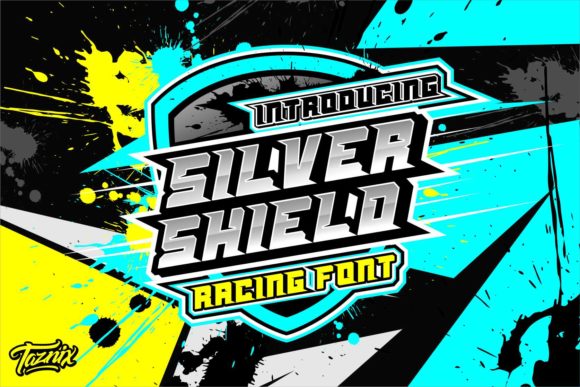
Prepare to be awestruck by Silver Shield, the display font that ignites a revolution in typography. Its bold and distinct character, meticulously crafted by taznixart, propels your designs to unprecedented heights.
Silver Shield is not just a font; it's a gateway to boundless creativity. Its robust structure and confident strokes command attention, making it the perfect choice for motorsports enthusiasts seeking to make a roaring statement.
With Silver Shield, your designs will conquer the racetrack of visual appeal. Its dynamic curves and sharp angles evoke the thrill of the chase, capturing the essence of speed and adrenaline. Unleash your imagination and let Silver Shield propel your designs to victory.
More than just a font, Silver Shield is an emblem of power and determination. Its unwavering presence demands attention, leaving an indelible mark on the minds of your audience. Harness its energy to create designs that resonate with strength, resilience, and unwavering resolve.
Step into the winner's circle of design with Silver Shield. Its versatility extends beyond motorsports, making it an ideal companion for a wide spectrum of creative projects. From adrenaline-fueled posters to captivating logos, Silver Shield adapts seamlessly, delivering excellence in every endeavor.
Fuel your creative engine with Silver Shield, the font that ignites passion and propels your designs to the forefront. Embrace its boldness, embrace its strength, and let your imagination soar. The checkered flag of success awaits those who dare to wield this typographic masterpiece.